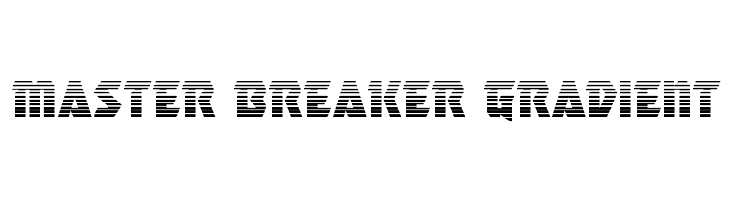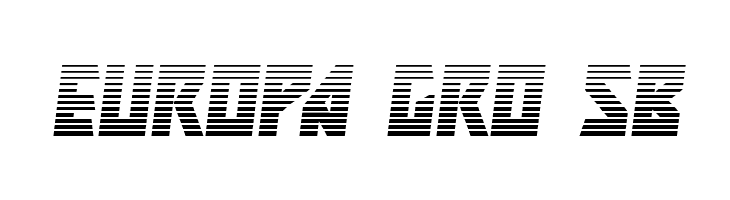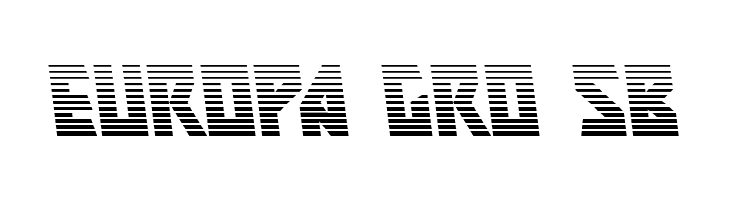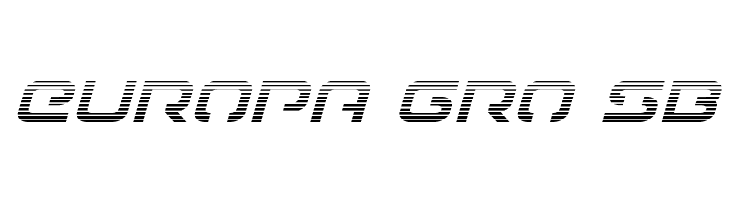
( Fonts by Iconian Fonts ) A bold, decorative font with horizontal stripes across each character. Download 53 Downloads@WebFont
( Fonts by Iconian Fonts ) A bold, futuristic font with a unique striped pattern and dynamic visual effect. Download 85 Downloads@WebFont
( Fonts by Iconian Fonts ) A bold, futuristic font with horizontal stripes and geometric shapes. Download 54 Downloads@WebFont
( Fonts by Iconian Fonts ) A bold, gradient-striped italic font with a modern, dynamic style. Download 51 Downloads@WebFont
( Fonts by Iconian Fonts ) A bold, futuristic font with a horizontal stripe gradient effect. Download 63 Downloads@WebFont
( Fonts by Iconian Fonts ) A futuristic, italicized font with gradient stripes and a dynamic appearance. Download 61 Downloads@WebFont
( Fonts by Iconian Fonts ) A bold, geometric font with a distinctive striped pattern, ideal for dynamic and futuristic designs. Download 65 Downloads@WebFont
( Fonts by Iconian Fonts ) A bold, geometric font with a modern, striped design. Download 80 Downloads@WebFont
( Fonts by Iconian Fonts ) A bold, italicized font with a gradient stripe effect, exuding modernity and dynamism. Download 115 Downloads@WebFont